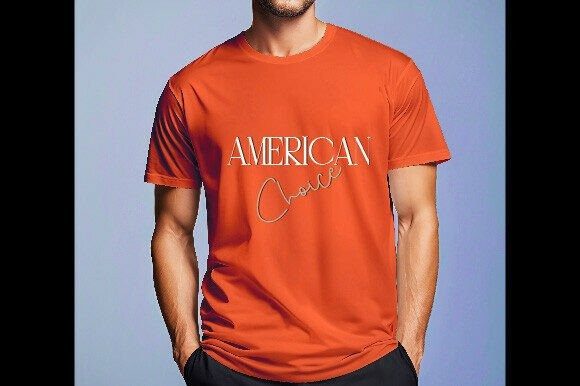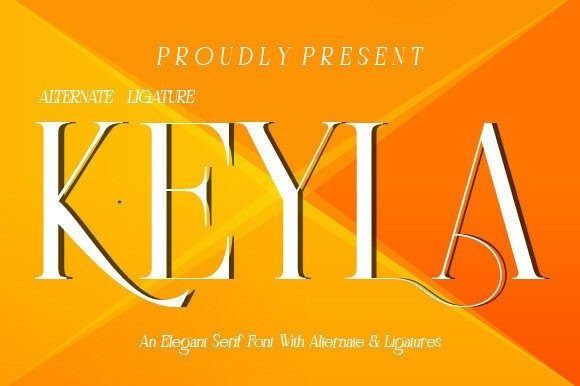
Keyla Font
Keyla Font a modern blend of elegance and application versatility. Stylishly Serif, Keyla personifies a timeless appeal, remaining fashionably relevant for all uses. It delivers an easy-to-read simplicity that enhances its attractiveness across a broad range of contexts. Whether you’re creating printed matter, drafting book titles, designing headlines, delving into decoration, or building brand identities, Keyla’s sophisticated allure never fails. Want to lend a distinctive touch to your photography or add flair to your logos? Harness the power of this charming font. Beyond mainstream uses, Keyla is equally serviceable for text documents and more.
The Keyla font set comes complete with a stunning range of upper and lowercase ornate characters, numerals, alternate styles, ligatures, and punctuation marks. Access all these amazing glyphs with remarkable simplicity! Furthermore, Keyla prides itself on a wealth of special features, further bolstering its usefulness for a variety of creative demands. Dive into the world of Keyla and elevate your creative endeavors.